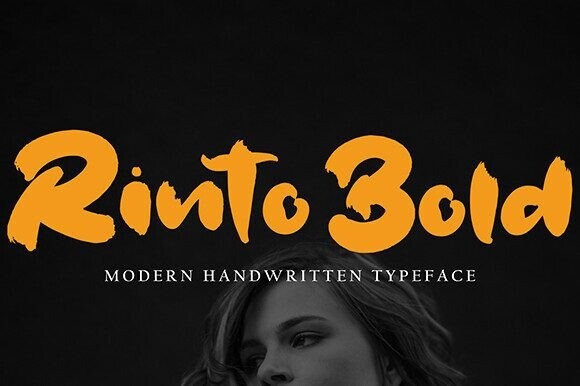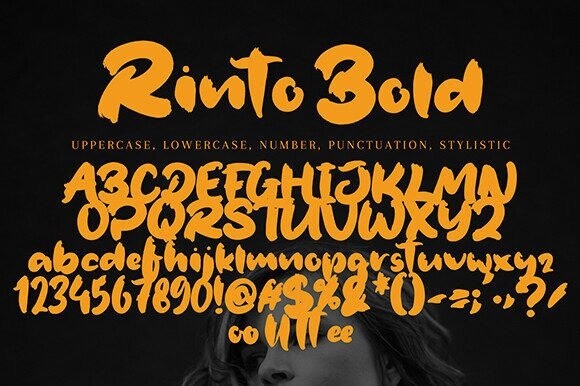
Rinto Bold Font
Rinto Bold Font is a stylish and incredibly elegant script font. It looks stunning on wedding invitations, thank you cards, quotes, greeting cards, logos, business cards and every other design which needs a handwritten touch.